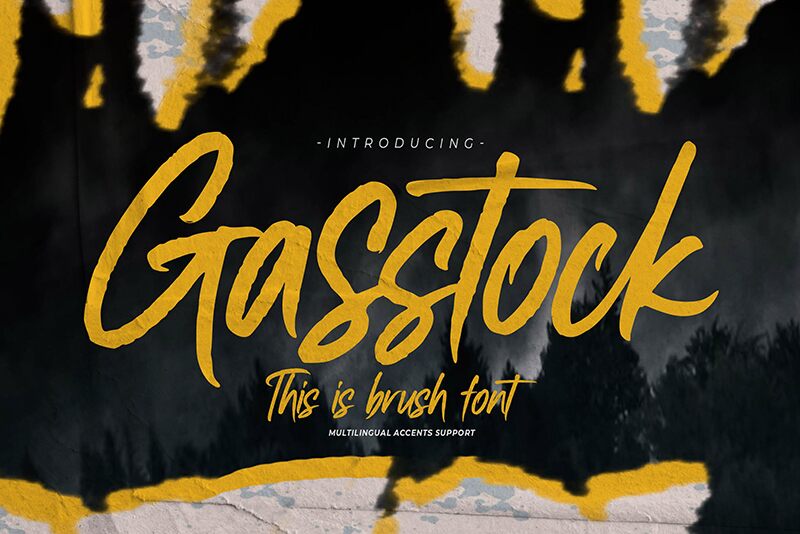
Gasstock
Gasstock emerges from the creative studio of Gassstype, encapsulating the raw energy and fluidity that only a brush font can deliver. With its semi-light weight and modern style, this font dances across the page with dramatic movement reminiscent of an artist's swift, intentional strokes. It's an authentic choice for designers seeking to infuse their work with a sense of spontaneity and vigor.
Ideal for an array of creative endeavors, Gasstock shines in contexts that demand uniqueness and a touch of whimsy-think bold labels, eye-catching posters, or any project that calls for a look that’s both contemporary and spirited. Its textured finish lends your designs a handmade feel, enhancing the overall natural aesthetics.
Elevate your branding or personalize your messaging; Gasstock is versatile enough to make each application feel one-of-a-kind. Plus, with OpenType features like ligature glyphs at your fingertips, you can add even more character to every word you craft.